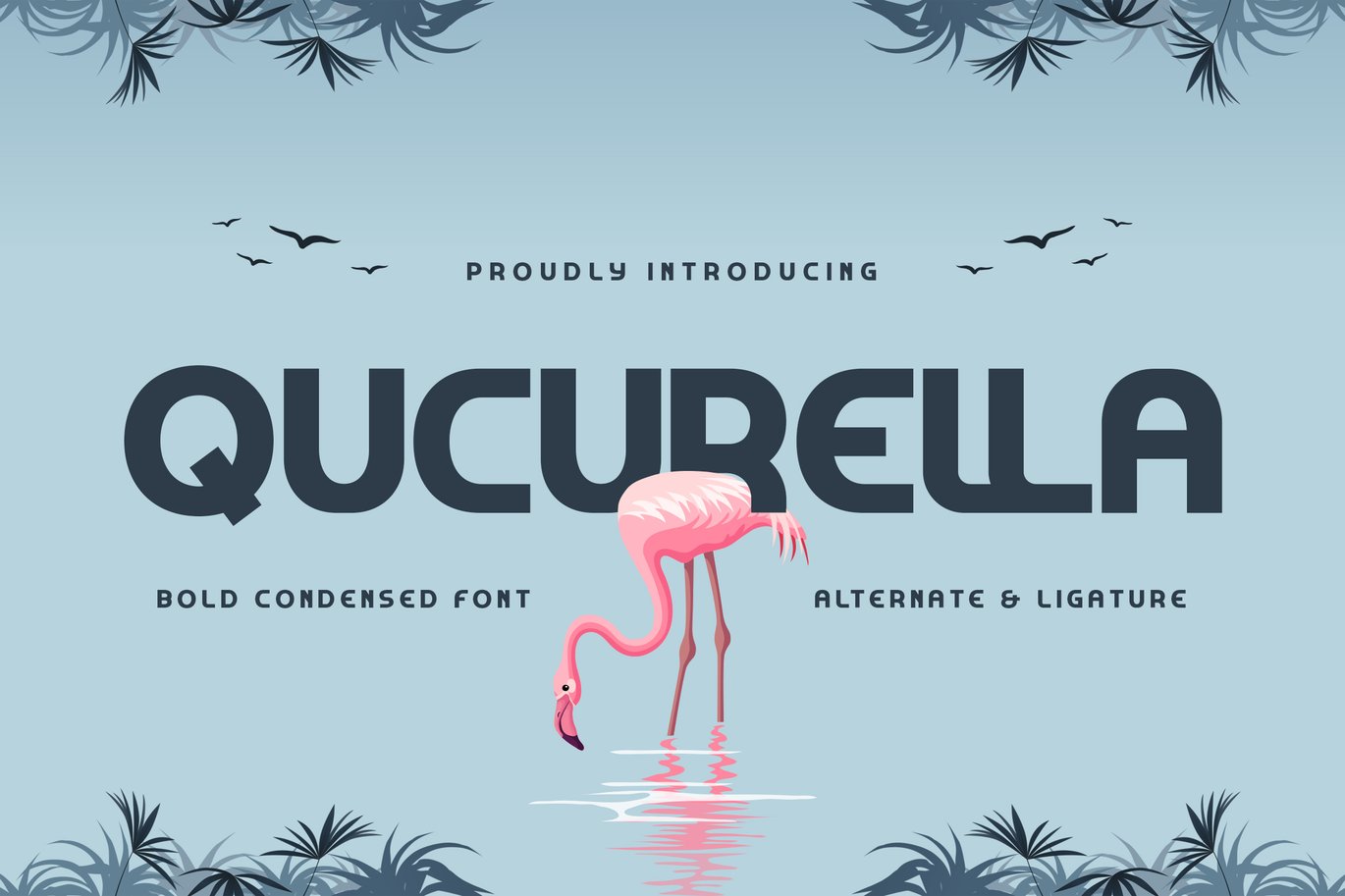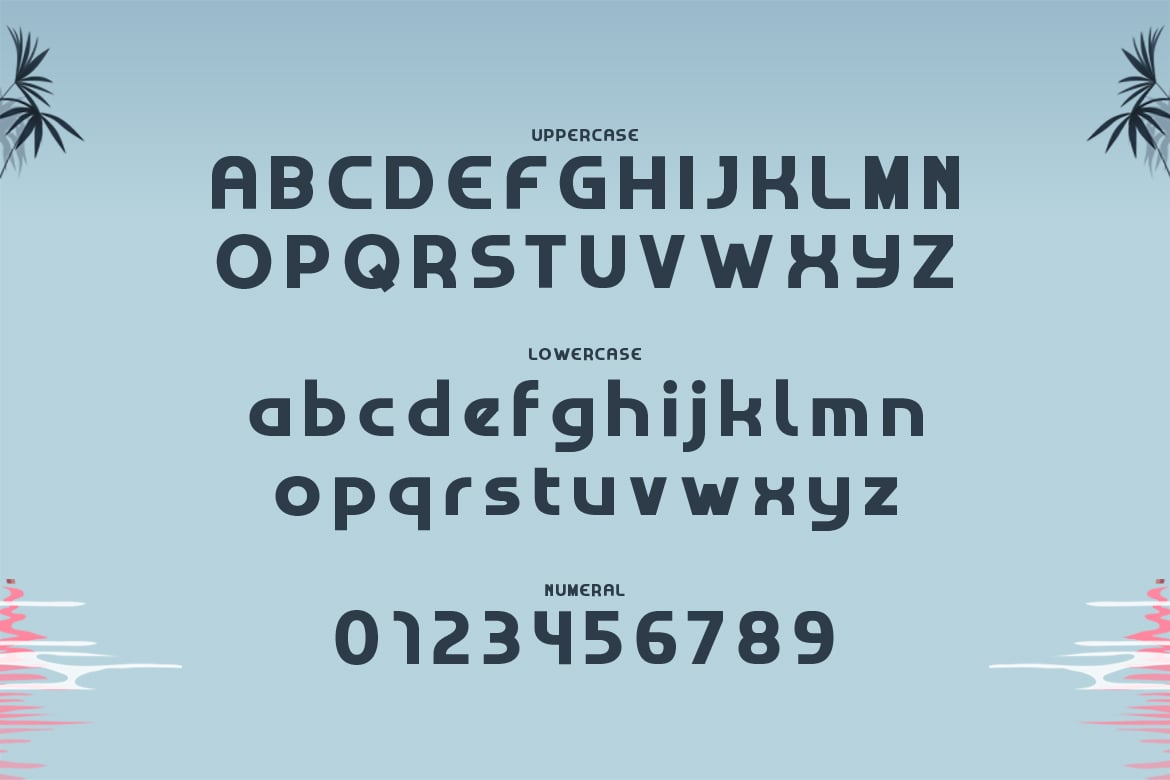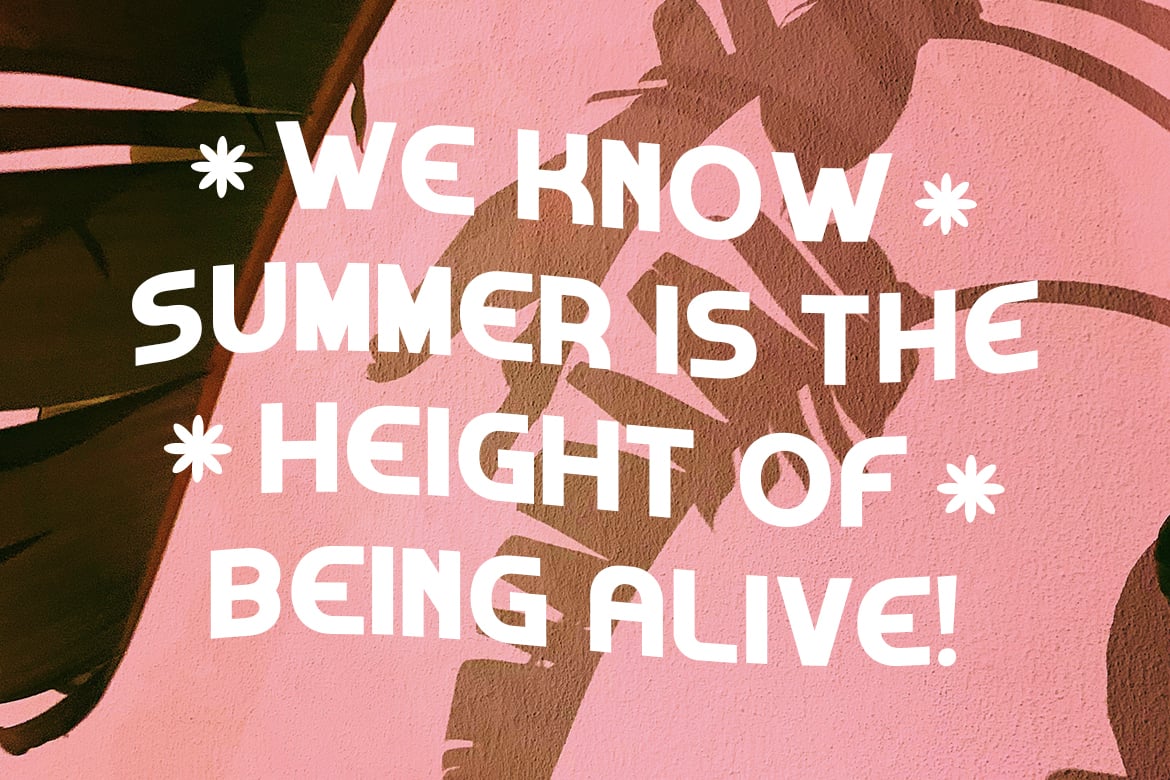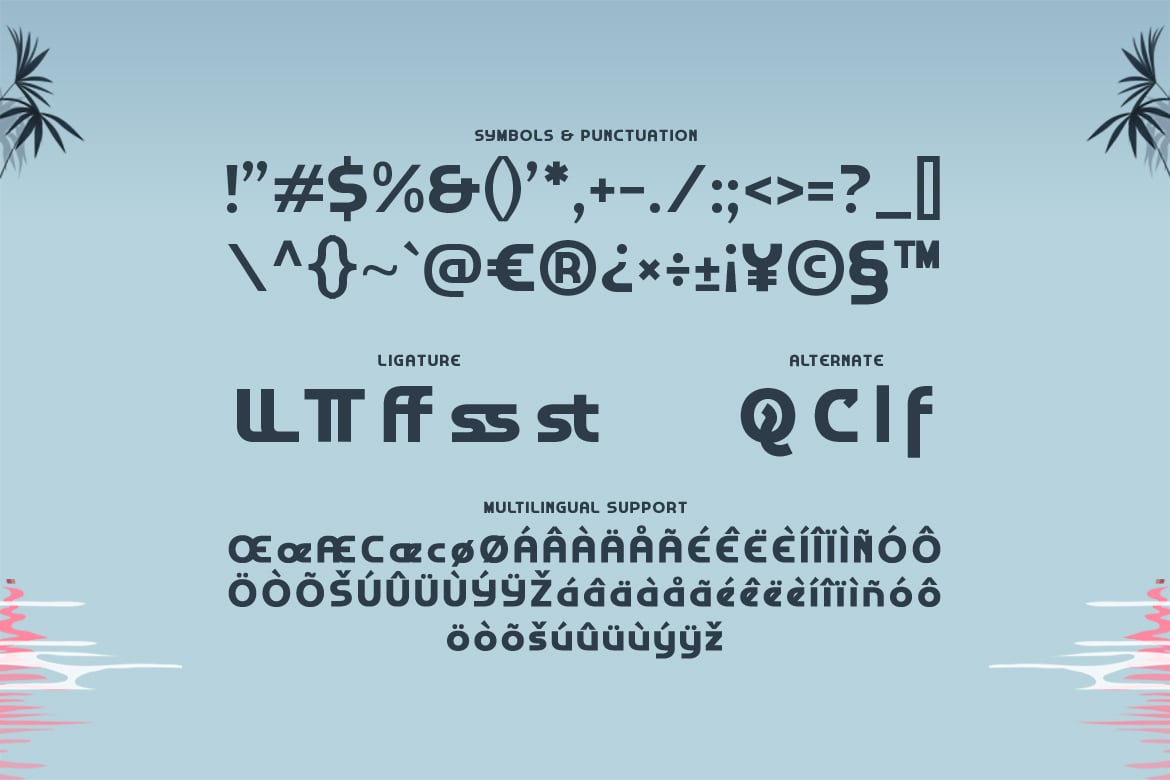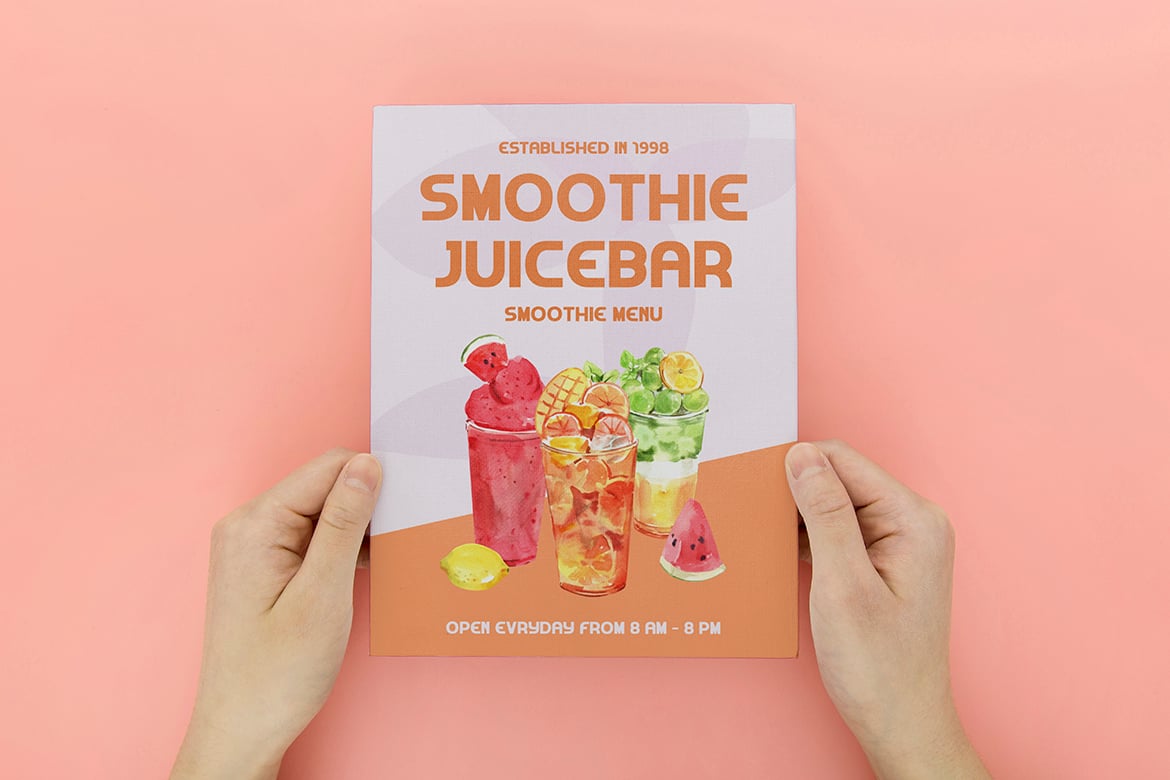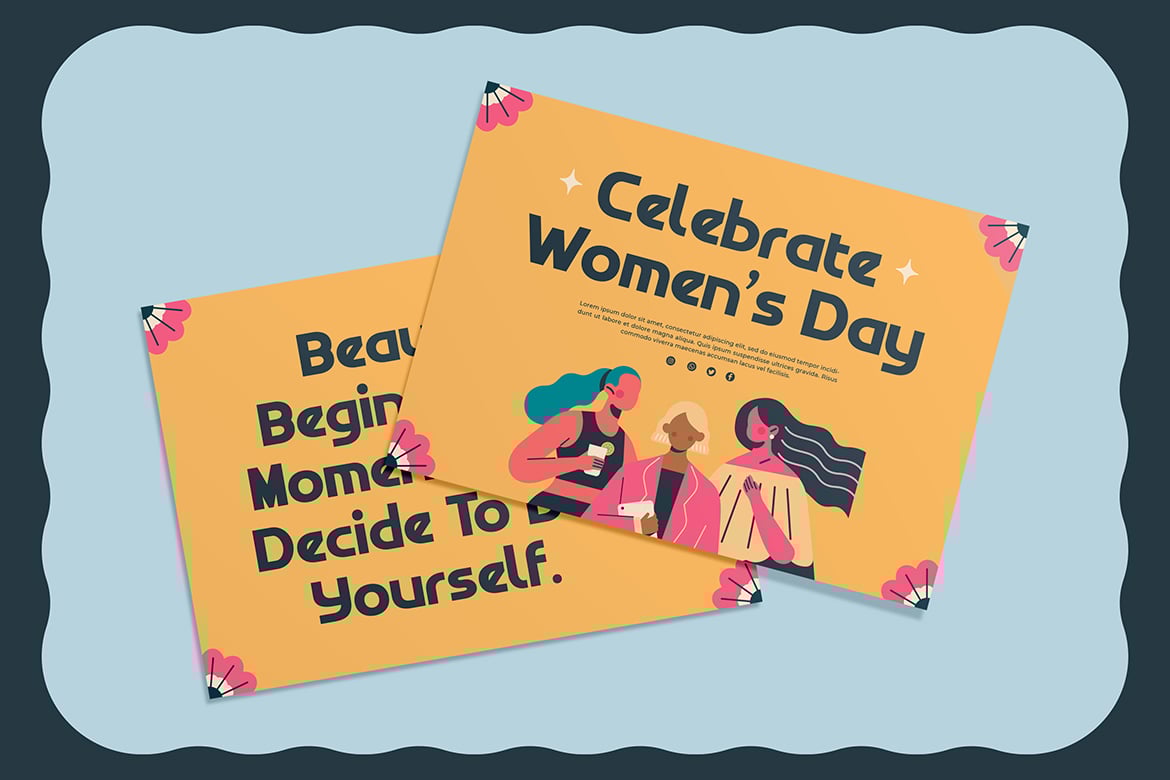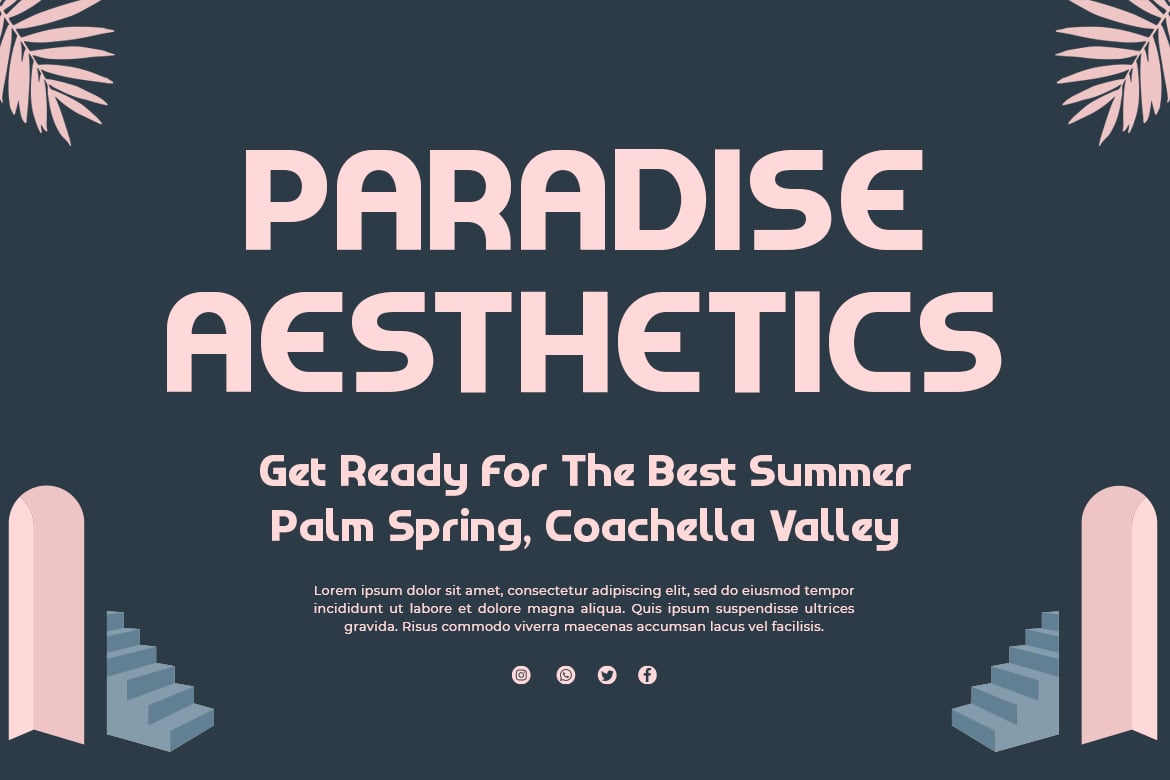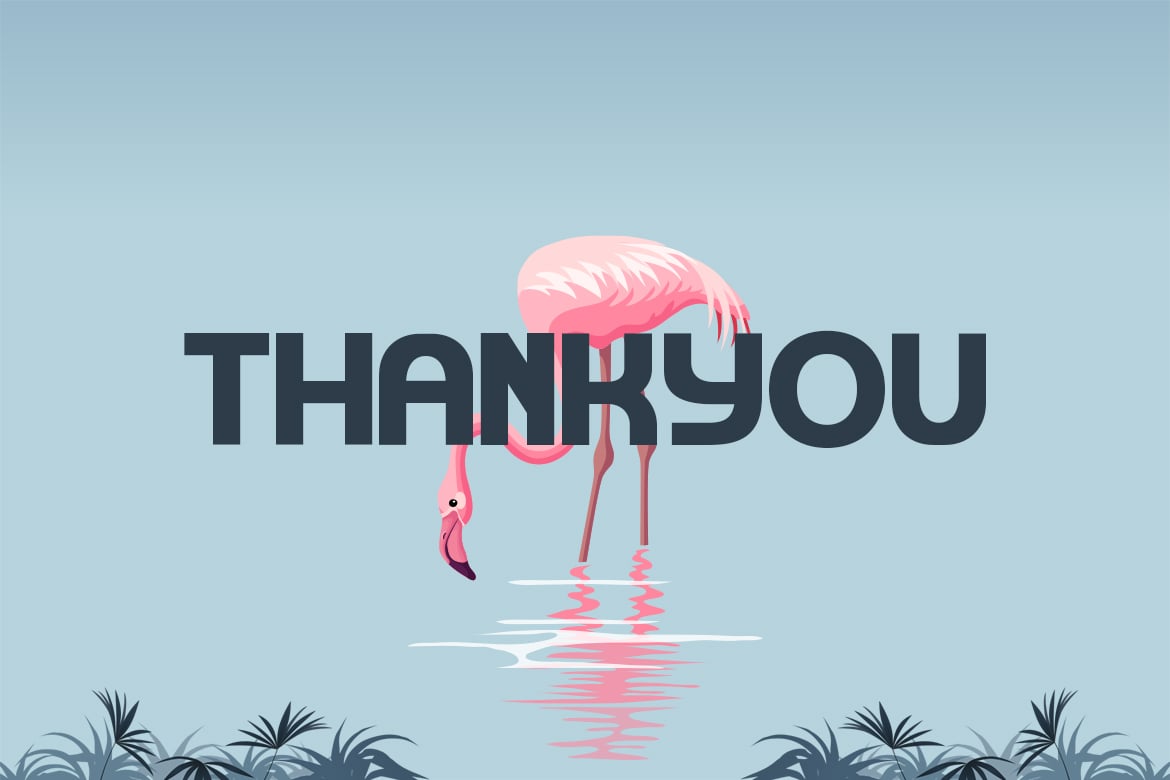
Qucurella – Bold Condensed Font
Unleash the boldness of “Qucurella” – a condensed font that commands attention and leaves a lasting impact!
With its strong and compact letterforms, “Qucurella” makes a striking statement in any design project. Each character is meticulously crafted to showcase a perfect balance of boldness and readability, making it ideal for eye-catching headlines, powerful logos, modern posters, and more.
Embrace the versatility of “Qucurella” as it effortlessly elevates your designs. Whether you’re working on branding for edgy startups, impactful packaging, sleek magazine covers, or captivating social media graphics, this font will captivate your audience with its bold and condensed style.